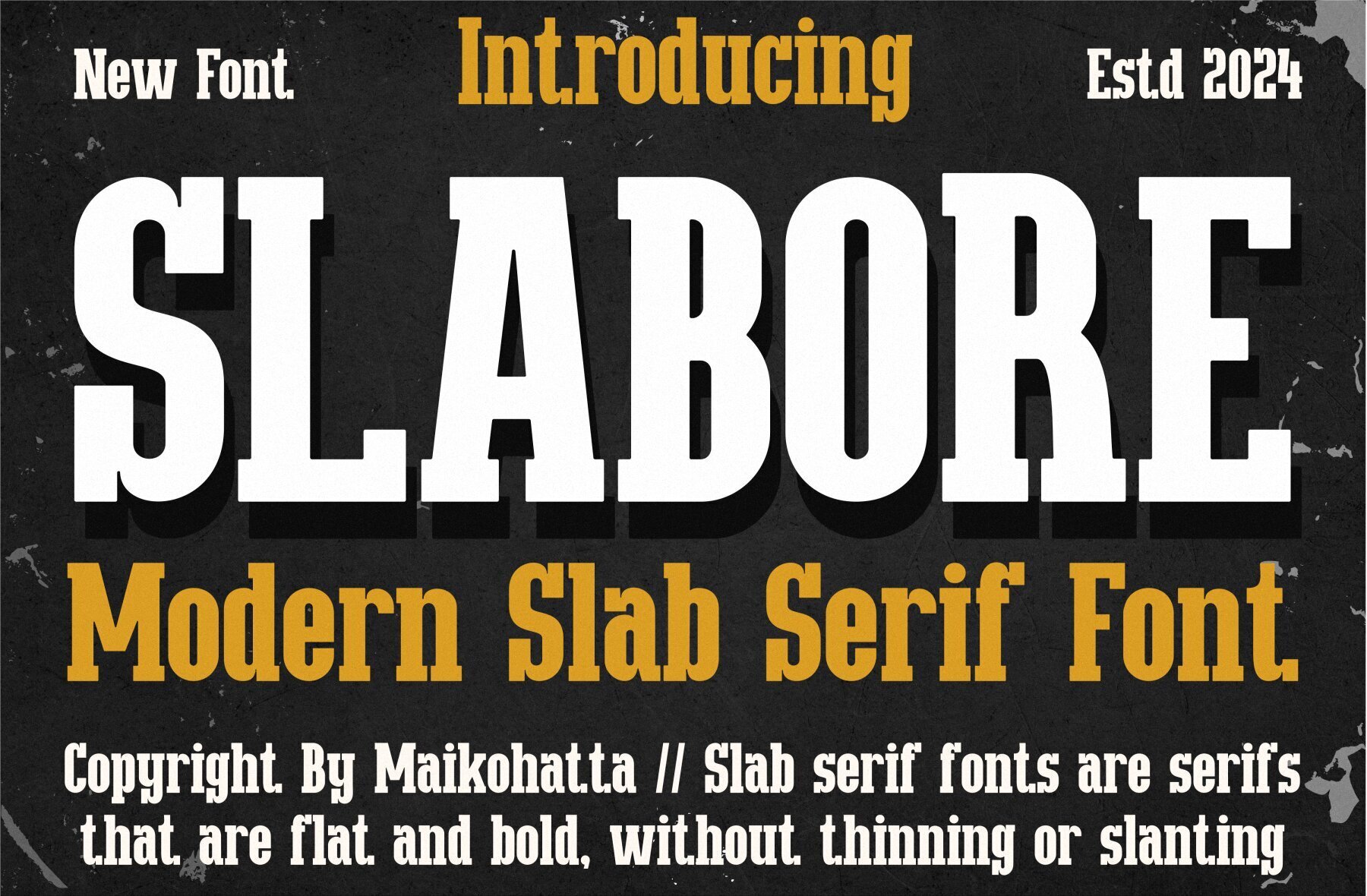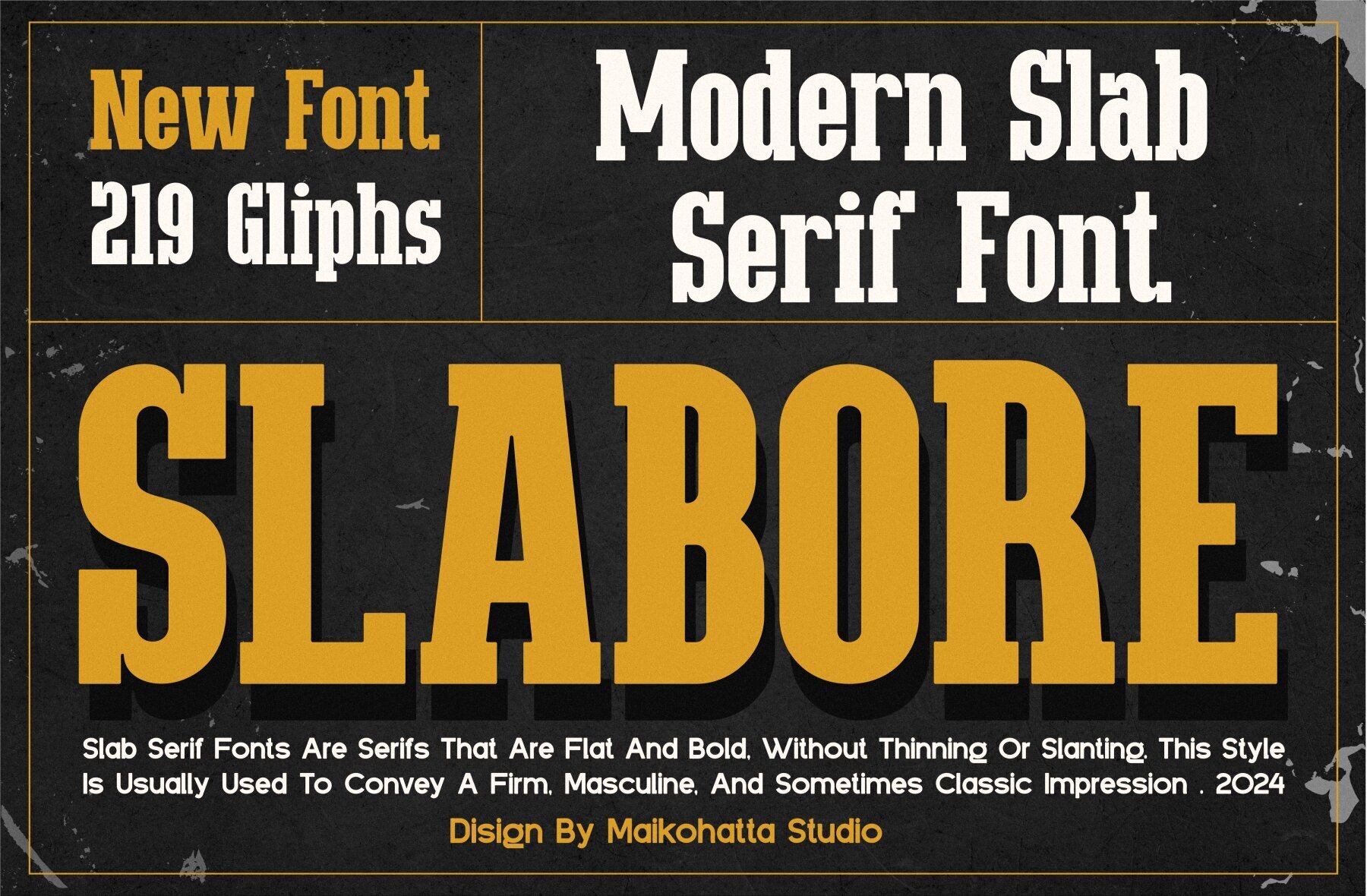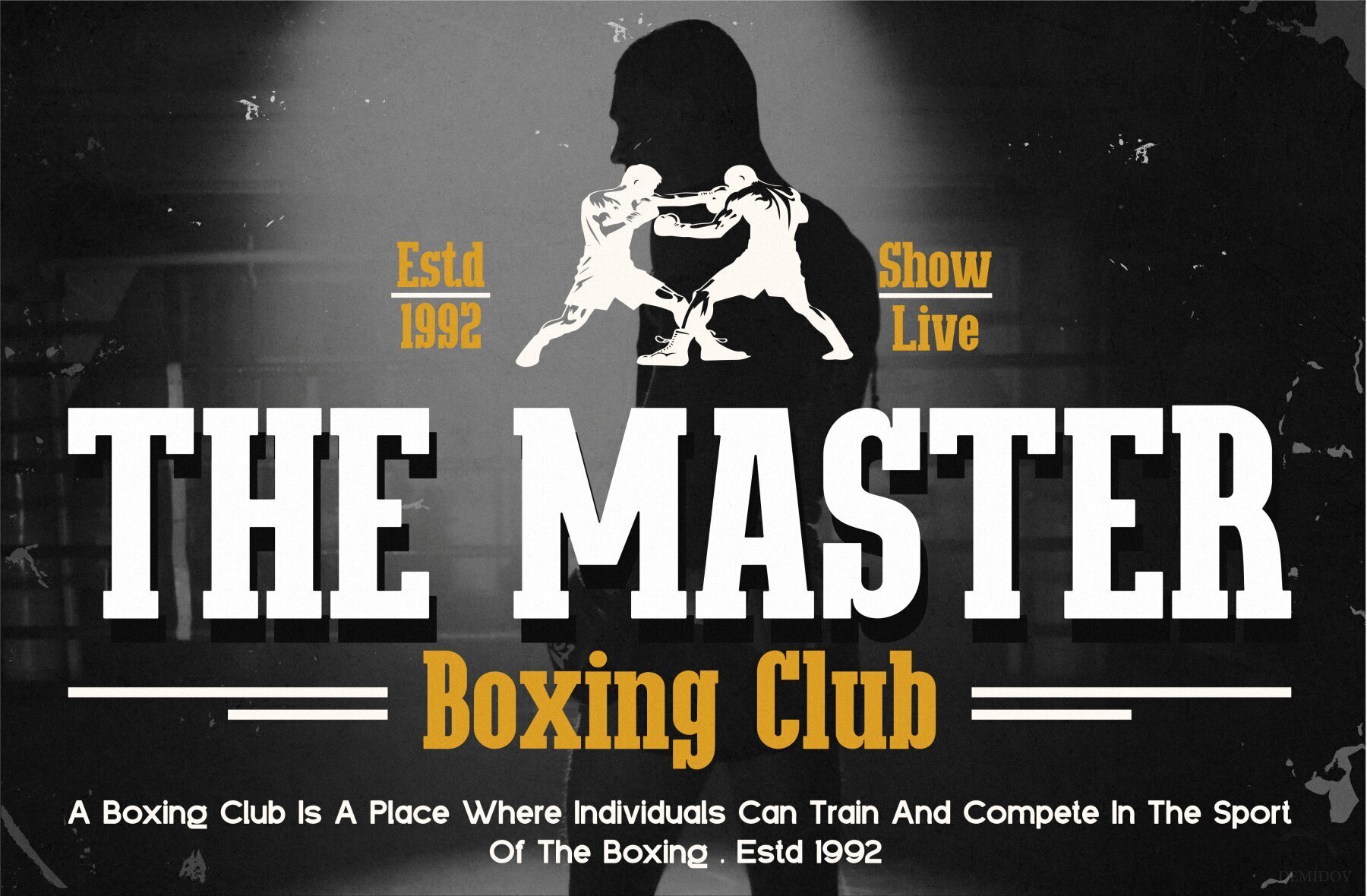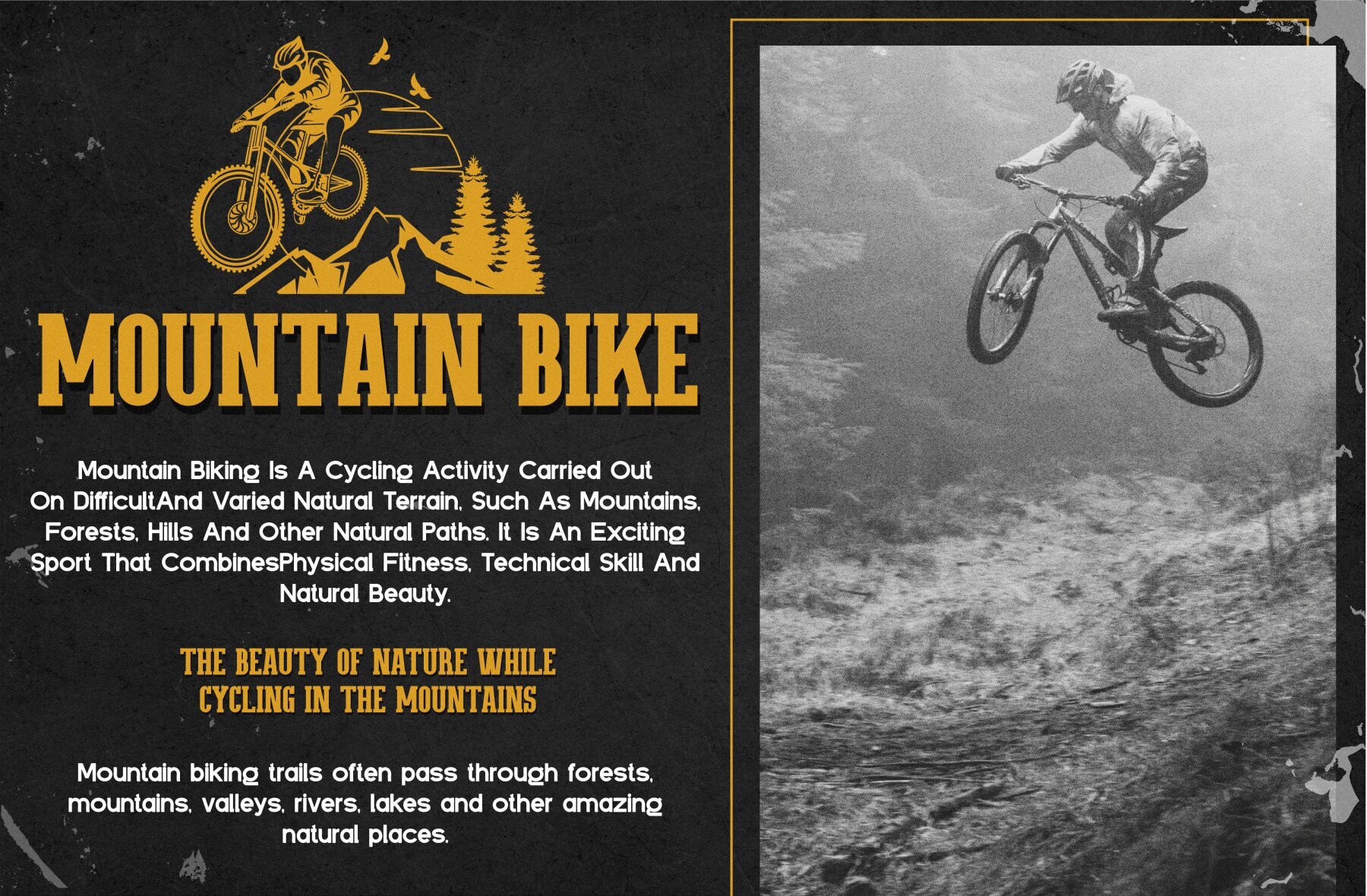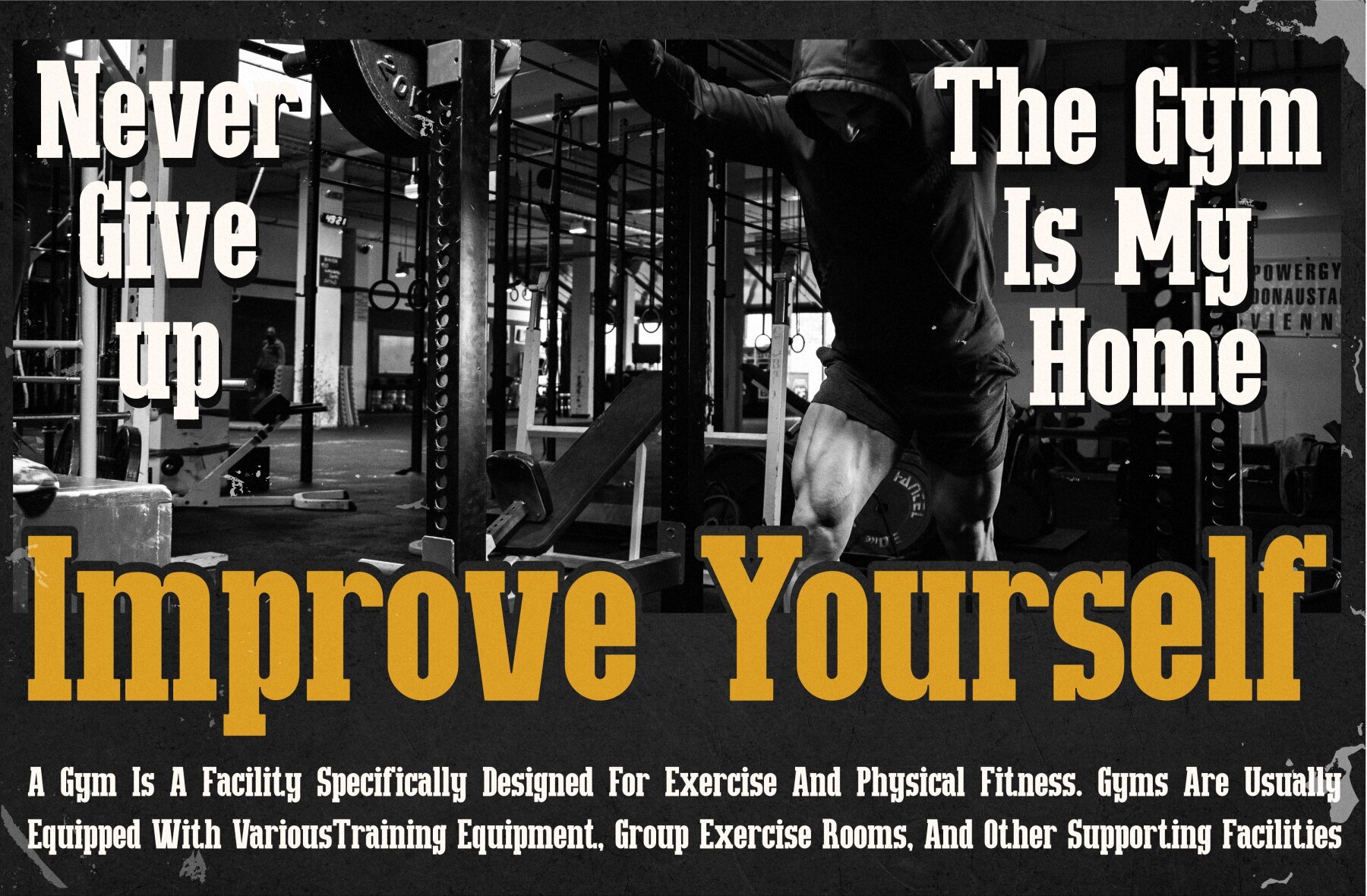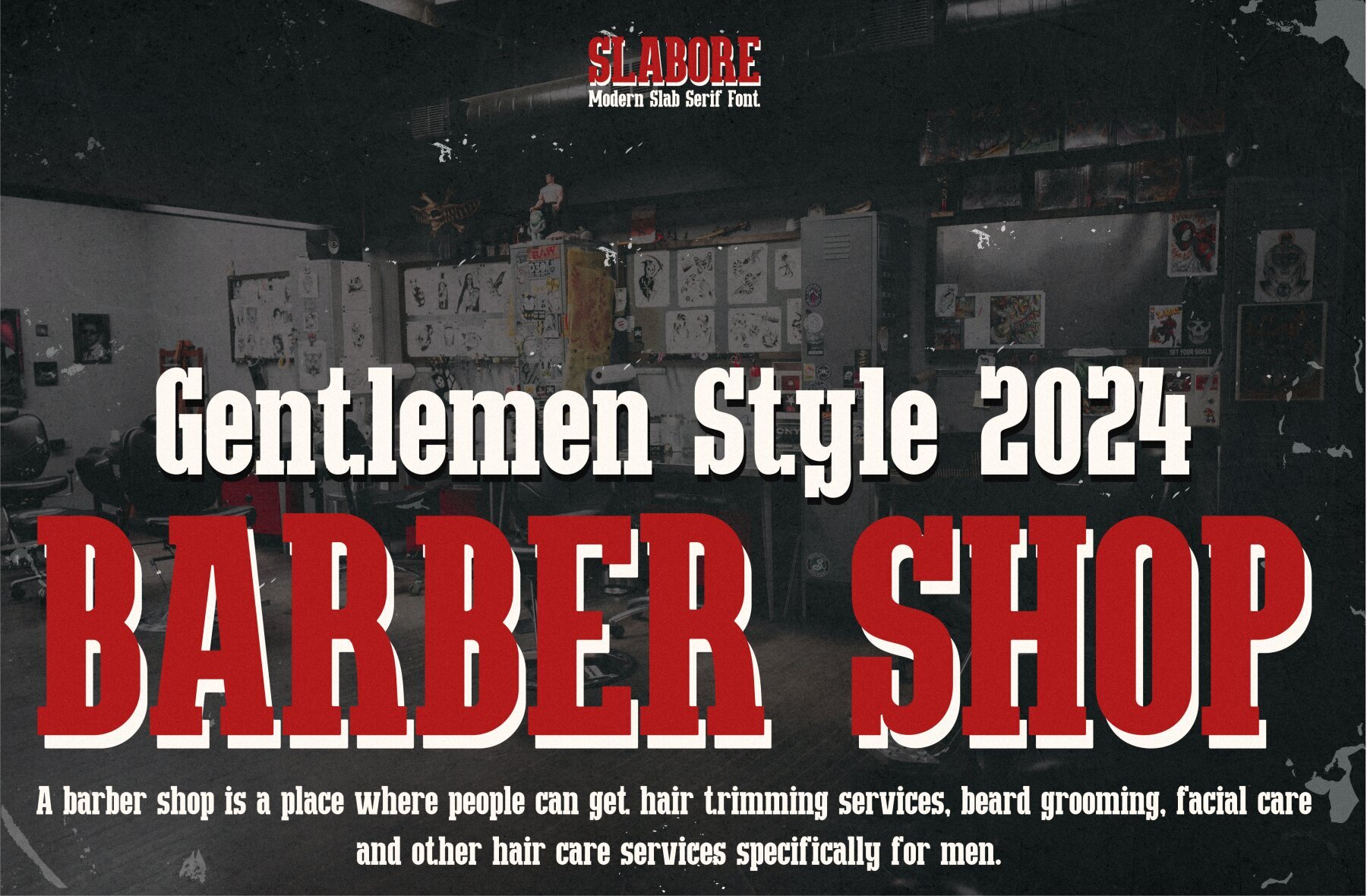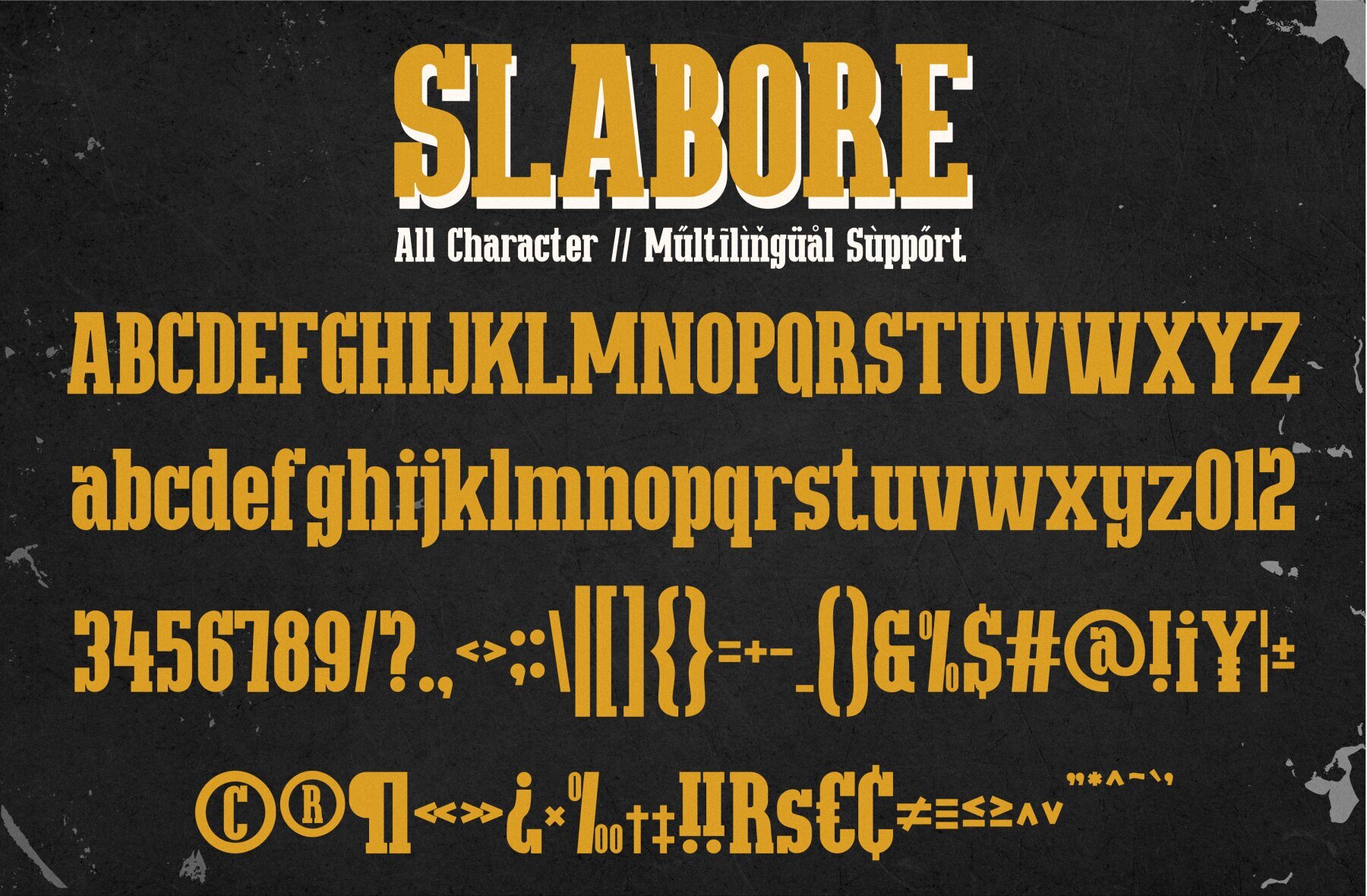
Slabore Font
Slabore Regular
The Slabore font by Maikohatta is a modern slab serif that offers a balanced proportion of stroke thickness and fineness, resulting in clear and attractive visuals. It features a bold distinction between thick and thin lines, adding a subtle yet distinctive touch to any design.Slabore: Modern Slab Serif Font